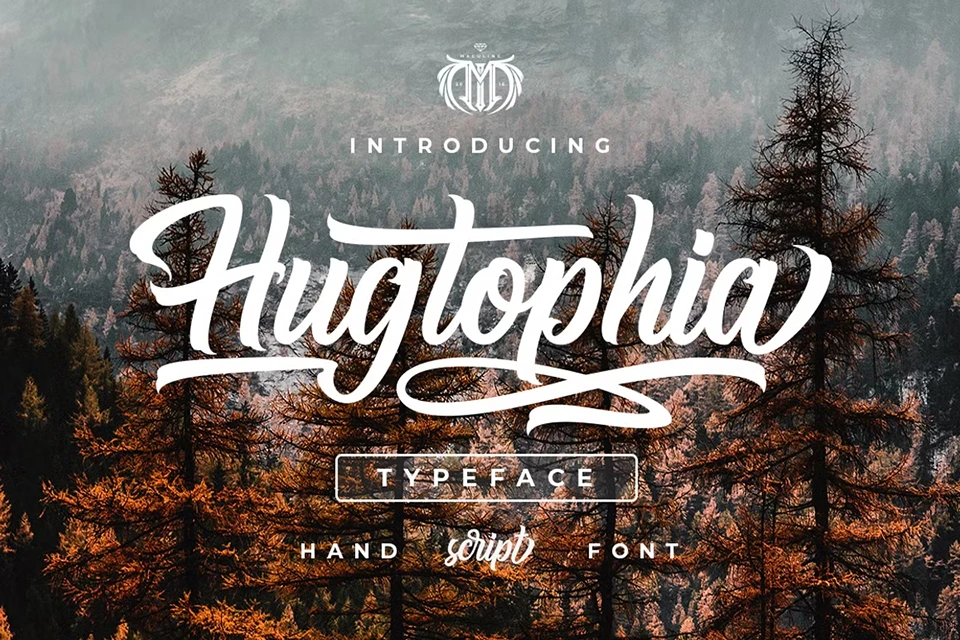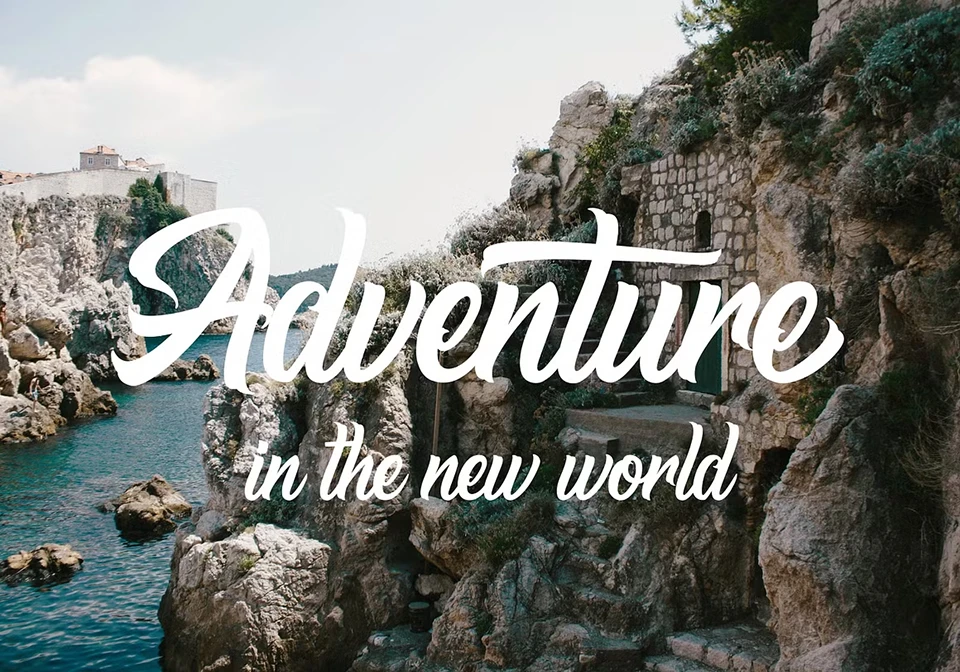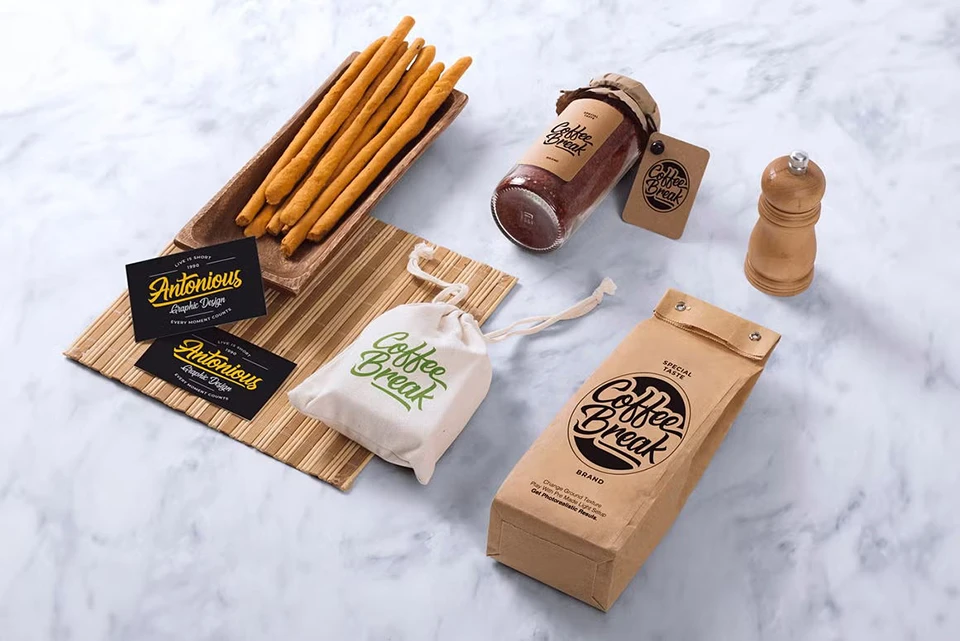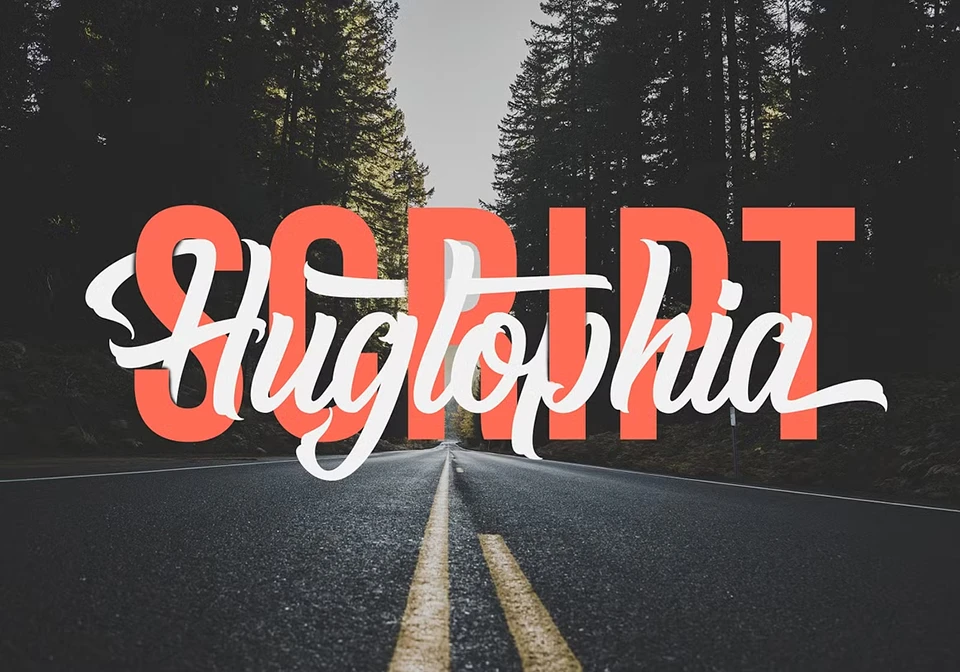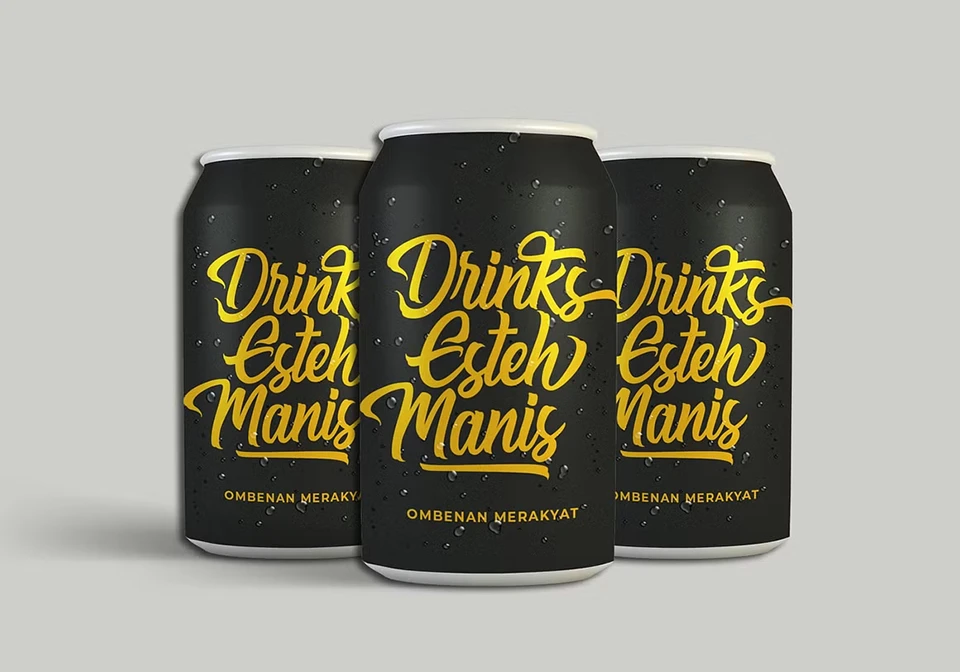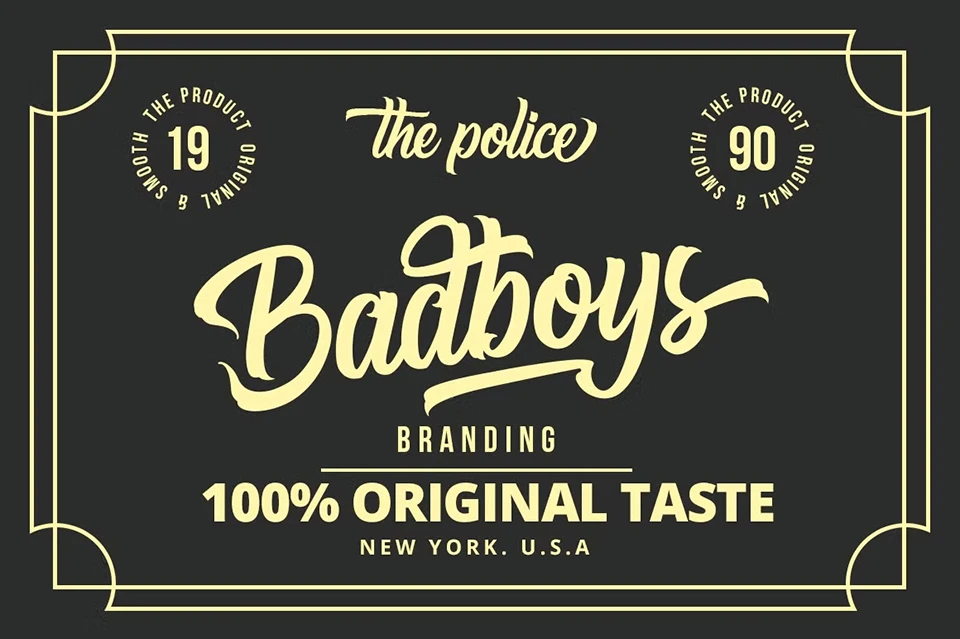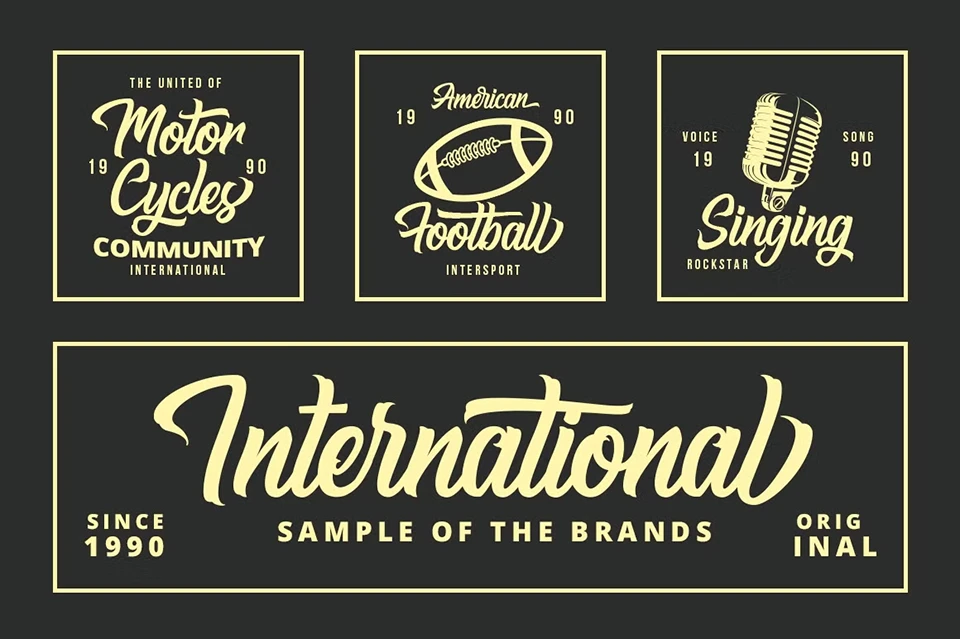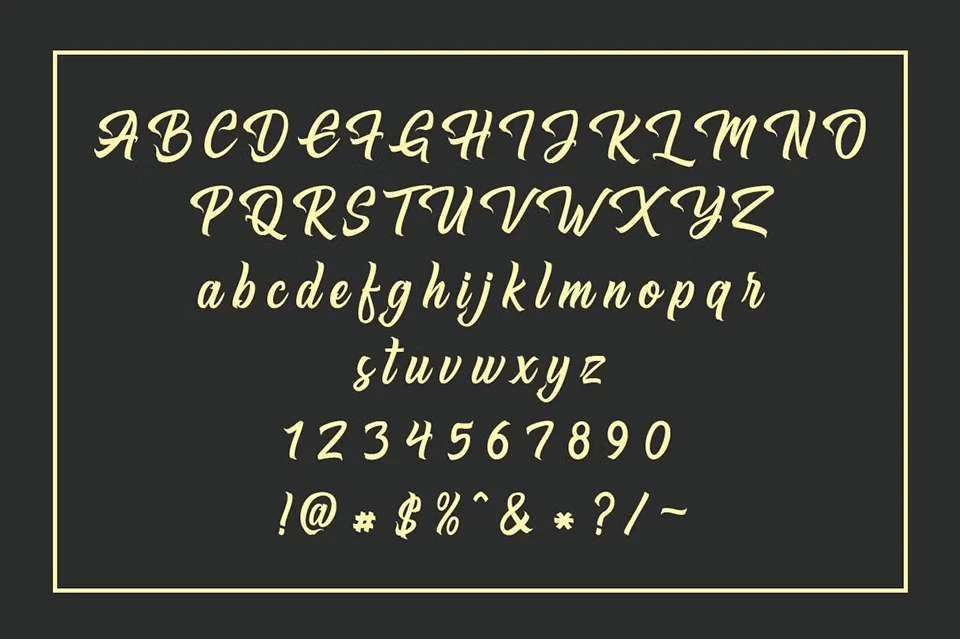
Hugtophia Font
Hugtophia is a font inspired by a fairy tale from a modern fantasy country, preserving its cultural roots—a land of love and peace that dispels evil thoughts.
This font’s simplicity and readability make it comfortable to use. It’s perfect for logos, badges, packaging, headlines, posters, t-shirts, greeting cards, business cards, wedding invitations, and more. Its flowing characters allow you to craft messages to your liking.
For added versatility, mix and match alternate characters and consider adding swashes. This font includes several OpenType features like Stylistic Alternates, Ligatures, and Ligature Alternates.